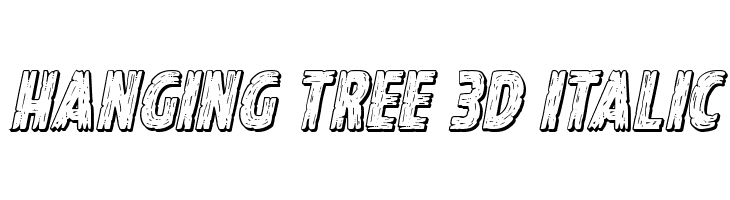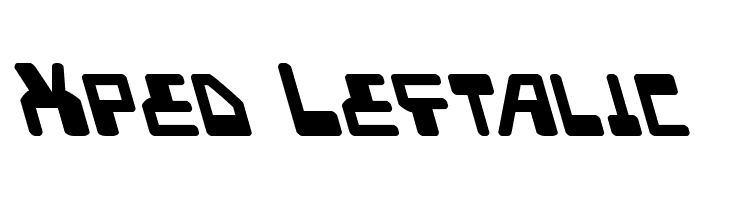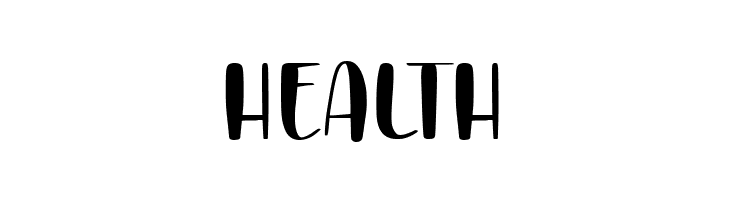
A bold, angular font with a futuristic and dynamic style.
A bold, modern font with thick strokes and a slightly condensed width.
A dynamic and fluid script font with bold, expressive strokes.
A futuristic, bold, and italicized font with sharp, angular shapes.
A futuristic, angular italic font with a high-tech, digital appearance.
A bold, condensed, and italicized font with a modern and dynamic style.
A bold, italic script font with a dynamic and fluid style.
An elegant script font with high contrast and flowing, cursive style.
A lively and elegant script font with fluid, connected letterforms.